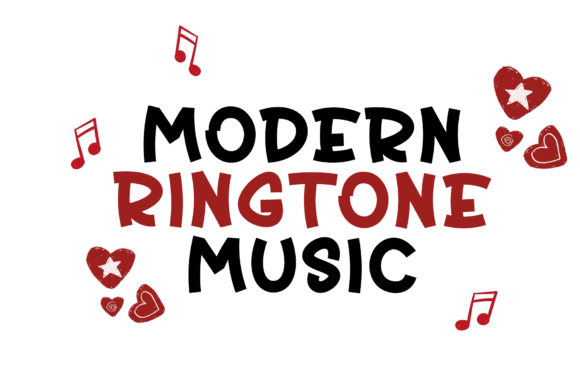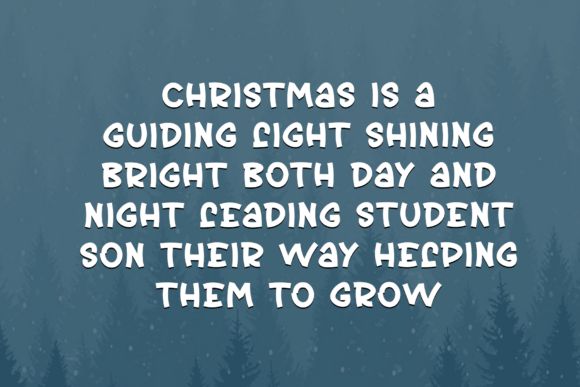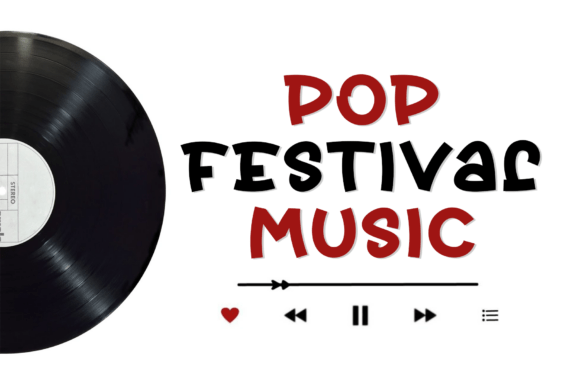
Introduction to Smurf Chanel Font
As designers, we’ve all been there – staring at a blank canvas, trying to come up with the perfect font to bring our creative project to life. The right font can make all the difference in setting the tone and mood of our design. And that’s exactly what we’re excited to share with you today – the Smurf Chanel Font, a fun and quirky handwritten display font that’s sure to add a touch of whimsy to your next design project.
Whether you’re working on a branding project, a social media campaign, or just a fun design experiment, the Smurf Chanel Font is a valuable addition to your design resource library. With its high-quality, hand-drawn design, this font is perfect for adding a personal touch to your creative projects. And the best part? It’s available for a free download, so you can start experimenting with it right away.
Honest Review: Smurf Chanel Font
As a designer, I’m always on the lookout for high-quality design resources to elevate my creative projects. Recently, I stumbled upon the Smurf Chanel Font, which I was excited to try out.
Overall, I’m impressed with the Smurf Chanel Font. While it may not be perfect, it’s a great resource for designers who need a high-quality, free font for their creative projects. Just be sure to review the licensing terms and conditions before using it in a commercial context.
Smurf Chanel Font is a high-quality, free download design resource ideal for creative projects that require a touch of sophistication. This font features a unique, stylish design with a transparent background, making it perfect for use in various graphic design applications.